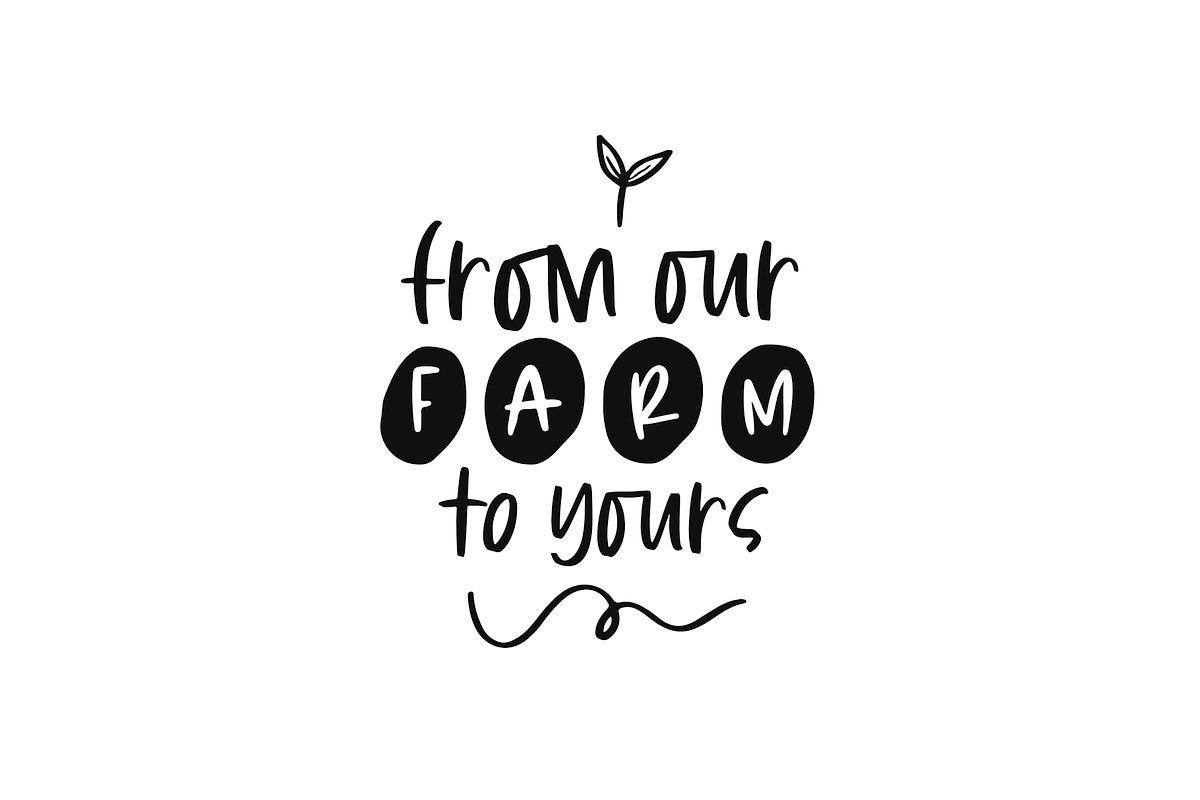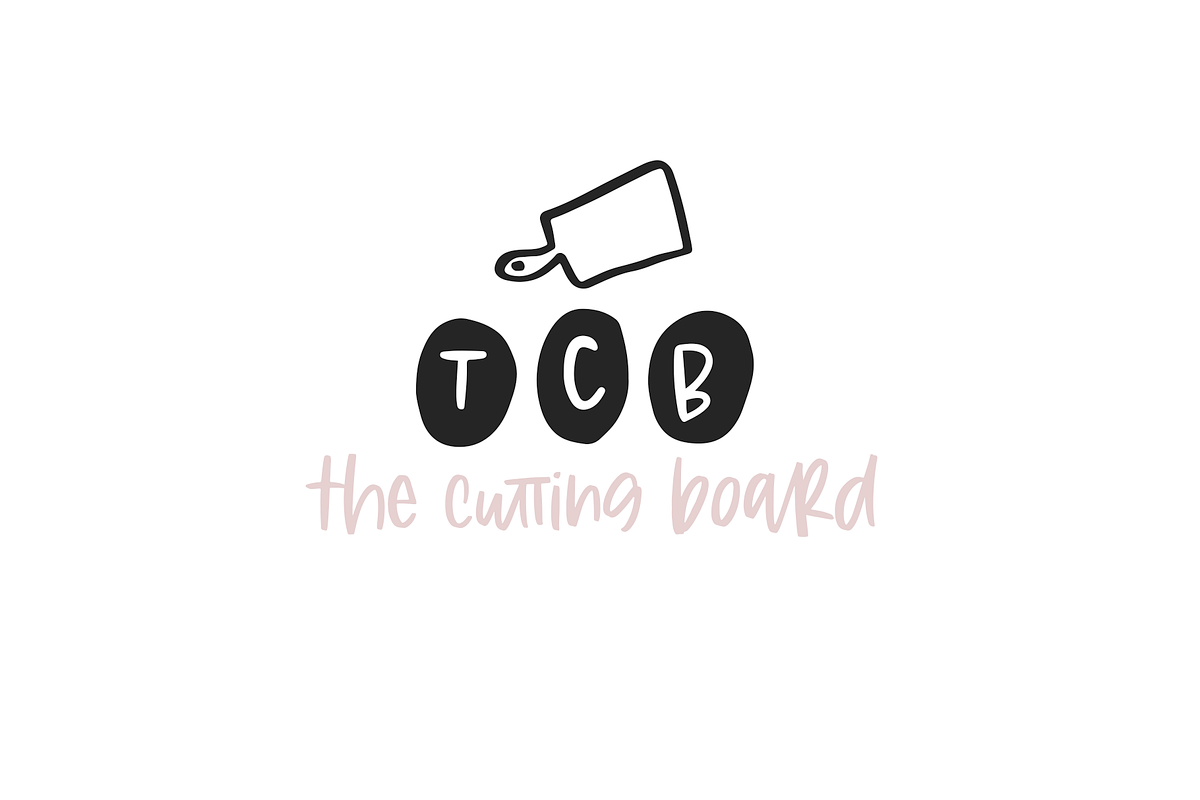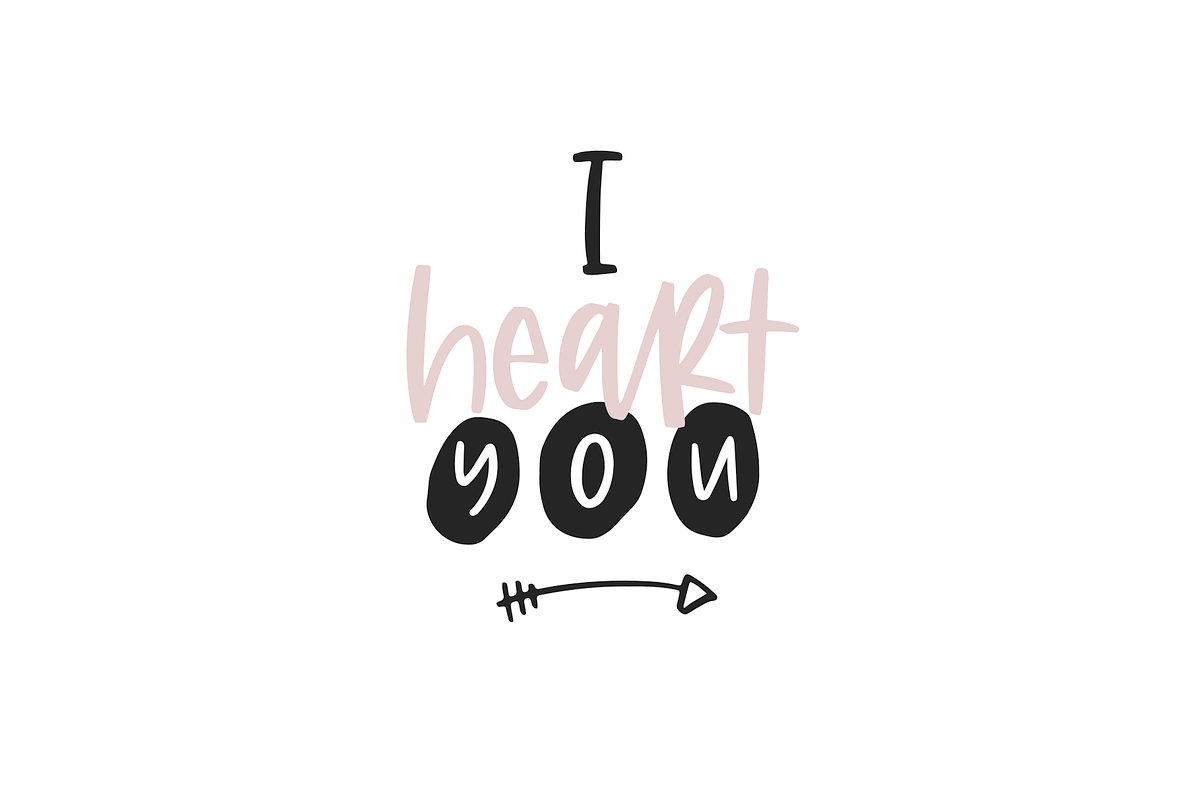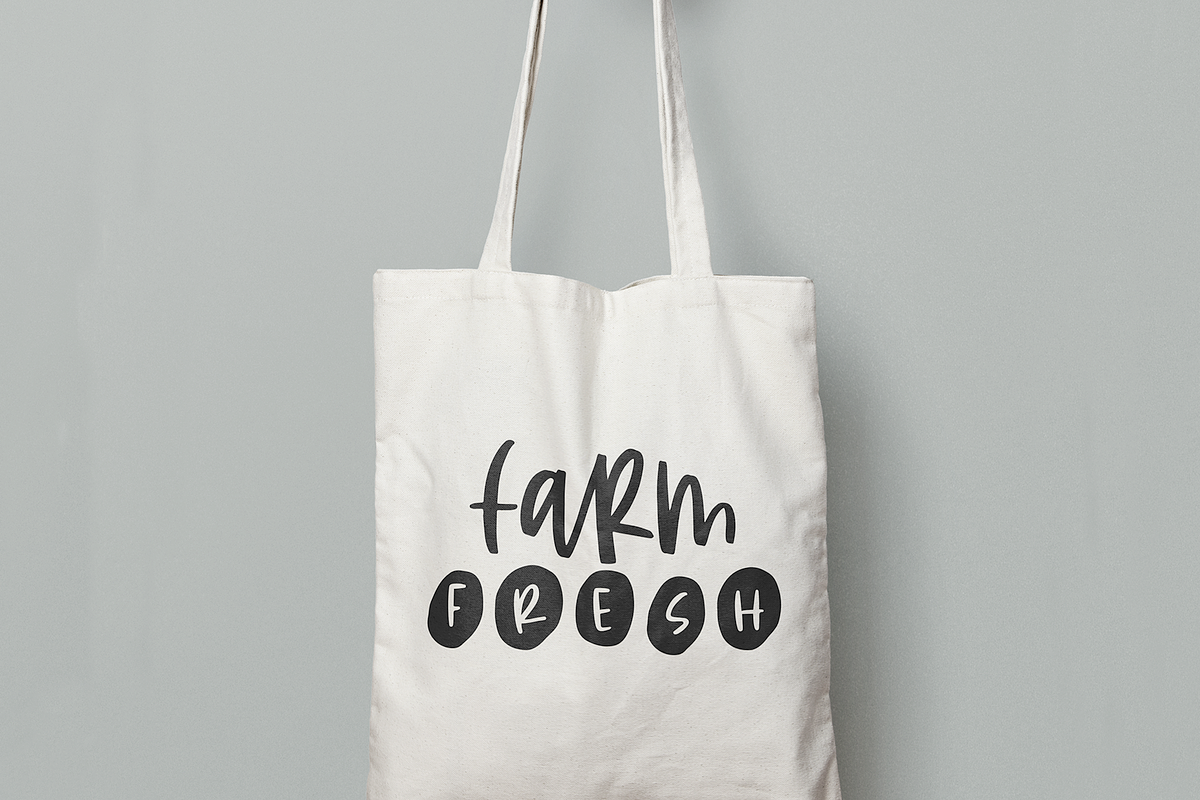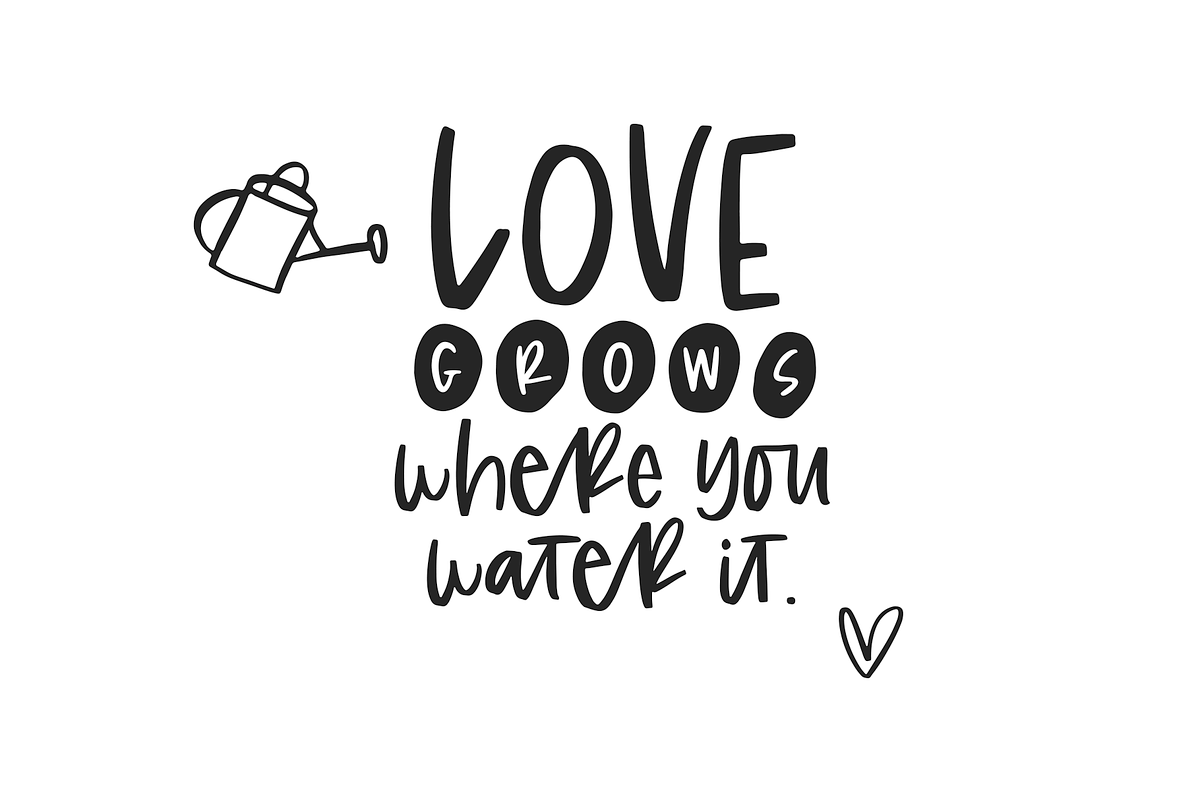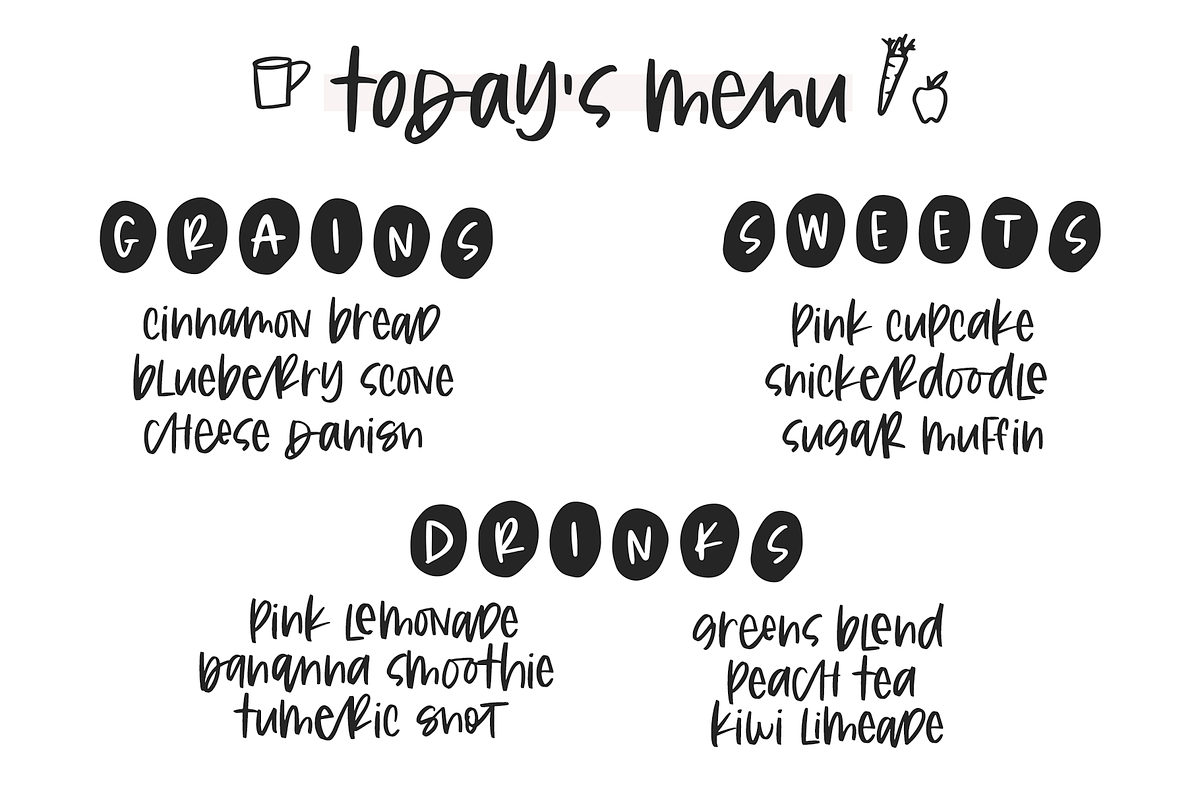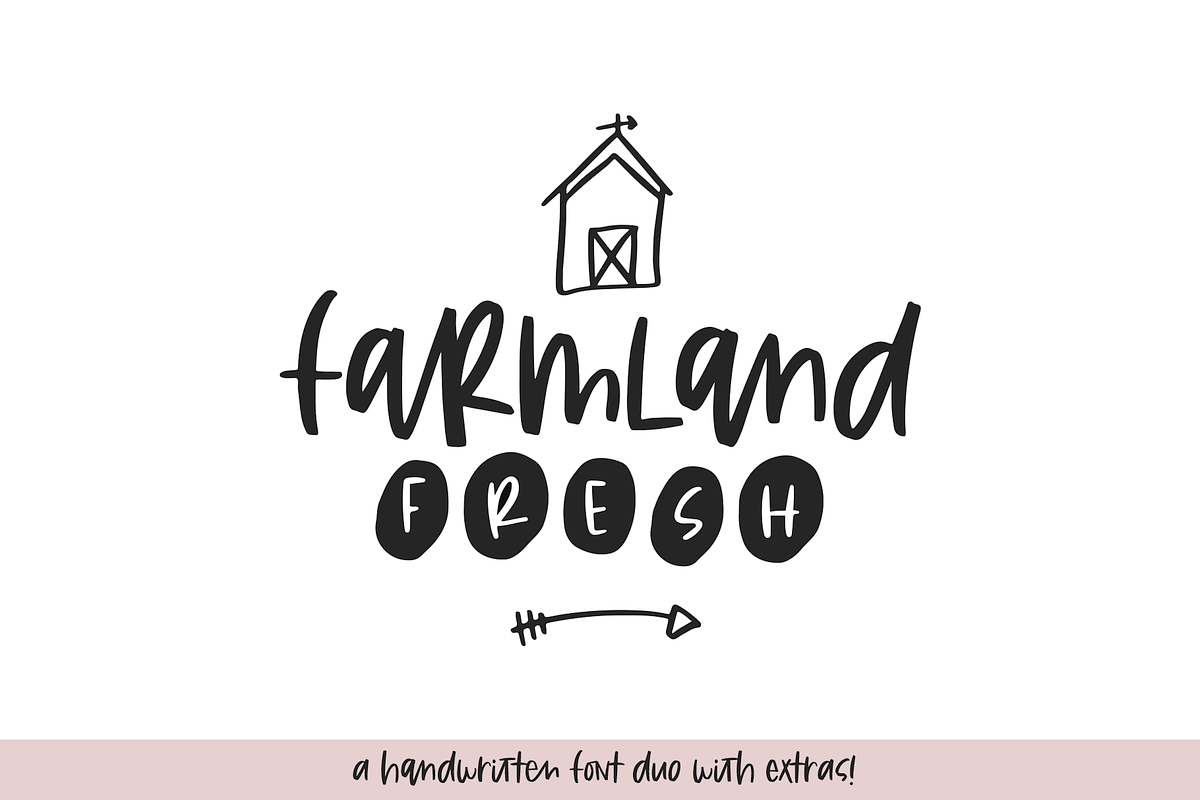
Farmland Fresh Duo and Doodles Font
Farmland Fresh is a fun font bundle with a country farmhouse feel. I had SO much fun creating this font! There are a ton of ligatures which give an authentic, handwritten look.
This font is perfect for branding, country quotes, social media, blogs, logos, signs, and more!
Farmland Fresh - The main font file. All of the ligatures and alternative letters are within this font.
Farmland Circles - A complimentary messy circle font.
Farmland Doodles - A fun set of doodles accessible using lowercase letters a-z
There are so many different styles that you can create with this font! I hope that you love using it as much as I loved creating it!